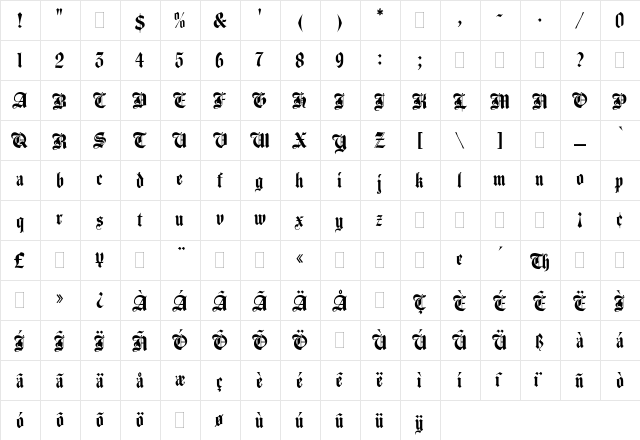
AgincourtPlain Regular
Design Context for AgincourtPlain Typeface
AgincourtPlain is a composed and adaptable typeface that performs quietly and consistently across a wide range of design contexts.